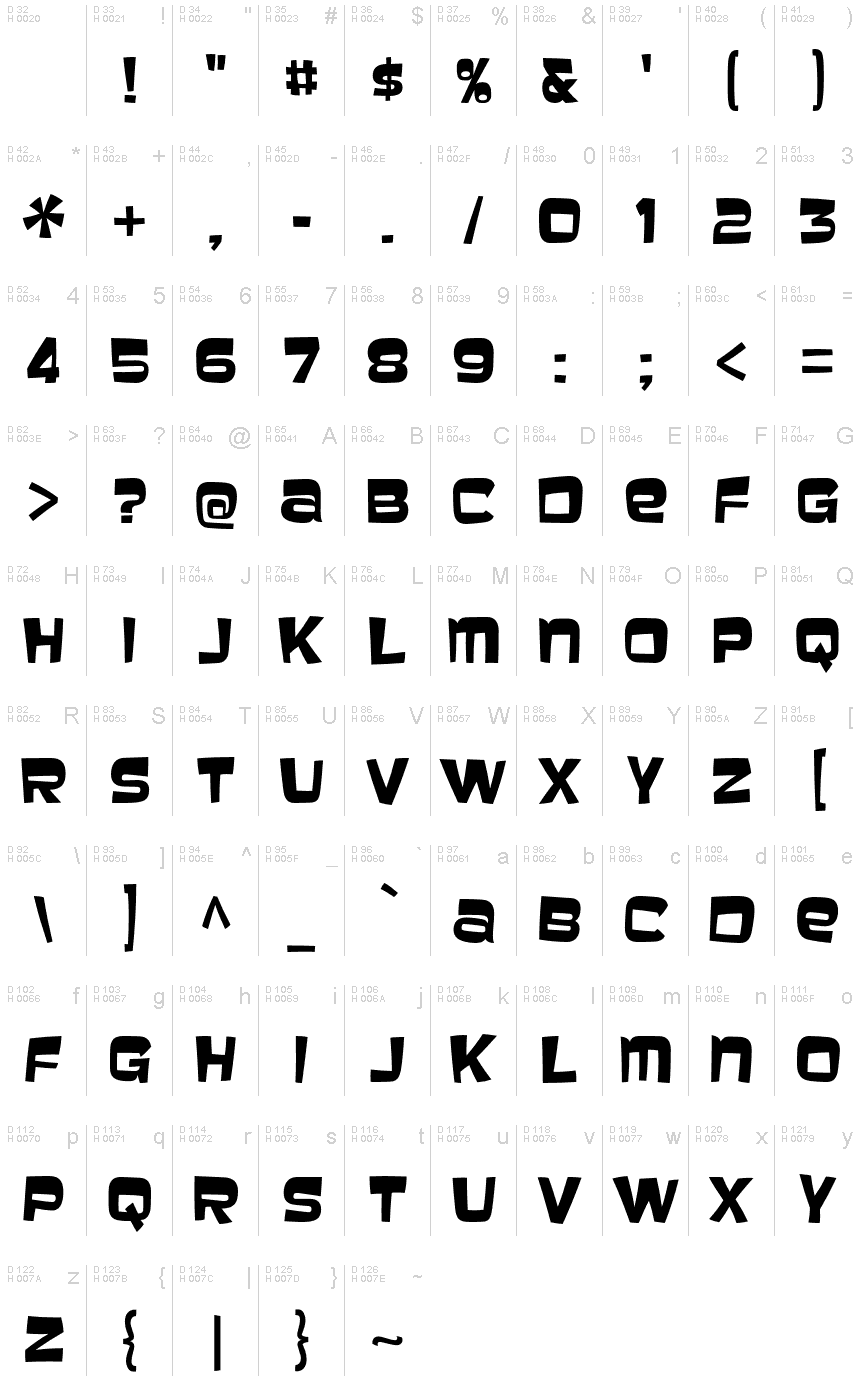
Baveuse-Regular
Baveuse is a fun, bouncy casual headline font created in 2000. The latest version of Baveuse has been redrawn with subtle curves for a more casual, less computerized look. An extra set of alternates has been added. In OpenType savvy applications, alternate letters and numerals are automatically shuffled to create a more natural feel.